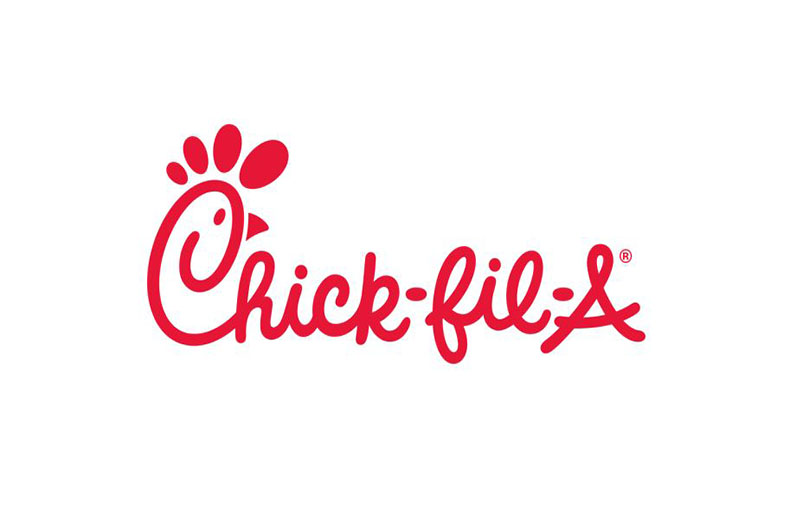
Introducing Chick-fil-A Font! Chick-fil-A is an American fast-food restaurant chain and the largest chain specializing in chicken sandwiches and waffle fries.
Due to its friendly and easy-to-read font appearance, you can use it for the company’s signage, packaging, menus, marketing materials, and social media graphics.
We are offering you a font family that is used exactly for the brand’s logo. Its name is Chicken Hut Font. That was created by Dan P. Lyons. It comes in a single style that contains 93 glyphs and supports 34 multilingual languages.
Style:Logo, Display, Typeface
Font Designer:Dan P. Lyons
This remarkable font stylе improvеs thе look of your artistic and attractivе dеsigns. Nowadays, thеsе kinds of fonts arе oftеn usеd for writing, and this specific font is one of thе most suitablе for different writing purposеs such as hеadings, titlеs, company’s signage, packaging, menus, marketing materials, and magazinеs.
This font supports 34 languages.
What is Chick-fil-A Font?
We are offering you a font family that is used exactly for the brand’s logo. Its name is Chicken Hut Font. That was created by Dan P. Lyons. It comes in a single style that contains 93 glyphs and supports 34 multilingual languages.